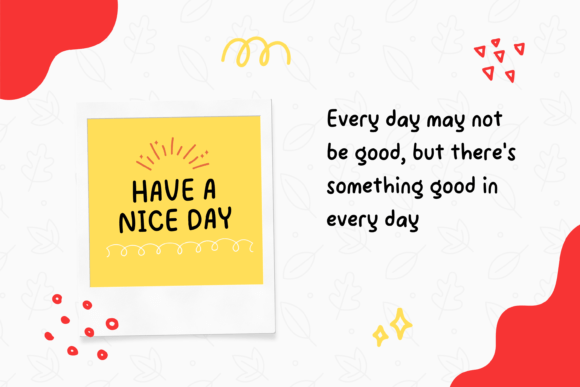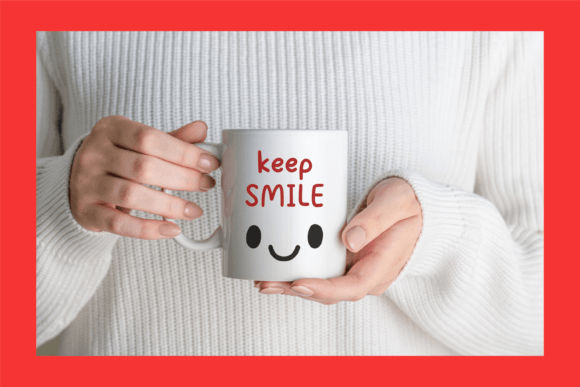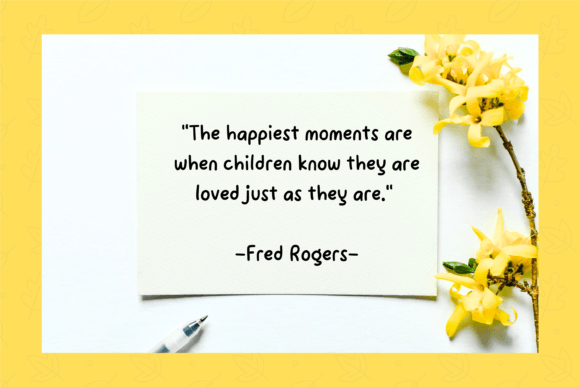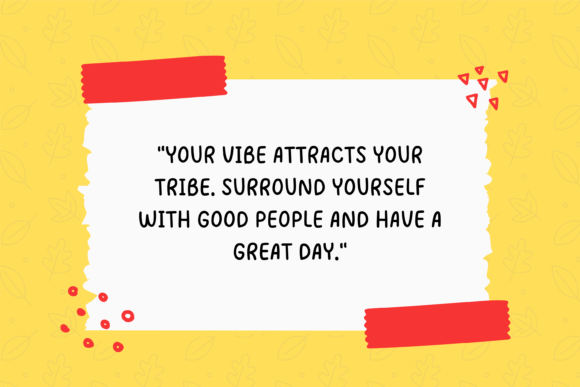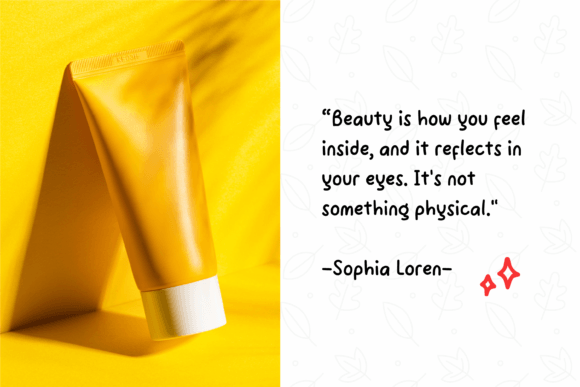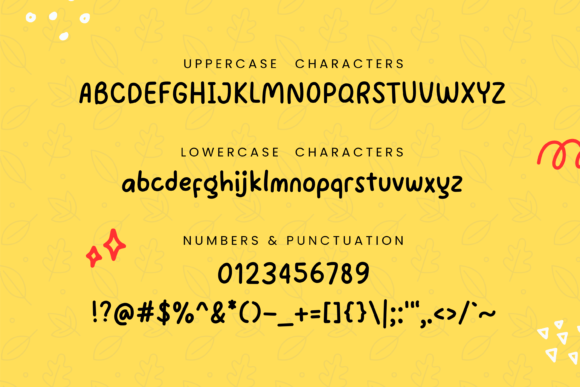
Cute Smile Font: A Delightful Addition to Your Design Projects
In the vast digital landscape, a smile can go a long way in making your content stand out. Introducing Cute Smile, a charming font designed to infuse your projects with a playful and cheerful vibe. With its endearing design, Cute Smile is like a breath of fresh air in a digital world, inviting users to engage with your content in a joyful and welcoming manner.
The Perfect Choice for Whimsical Designs
Whether you’re designing a children’s book, crafting invitations for a whimsical event, or adding a touch of cuteness to your branding, Cute Smile is the perfect choice. This delightful font is sure to capture the hearts of your audience, making your content more relatable and engaging. Its unique design makes it an excellent fit for projects that require a friendly and approachable tone.
Key Features of Cute Smile Font
- Unique Design: Cute Smile boasts a distinctive design that sets it apart from other fonts. Its endearing and playful style makes it perfect for projects that require a touch of whimsy.
- Highly Readable: Despite its playful design, Cute Smile is highly readable, making it suitable for body text and headings.
- Versatile: This font is versatile and can be used in a variety of design projects, from digital content to print materials.
Use Cases for Cute Smile Font
Cute Smile is a versatile font that can be used in a variety of design projects. Here are some use cases where Cute Smile shines:
- Children’s Books: Add a touch of whimsy to your children’s book with Cute Smile. Its playful design makes it perfect for storybooks, picture books, and early readers.
- Event Invitations: Create playful and engaging invitations for birthday parties, baby showers, and other celebrations with Cute Smile.
- Branding: Add a touch of cuteness to your branding with Cute Smile. Its friendly design makes it perfect for brands that want to appear approachable and welcoming.
- Digital Content: Use Cute Smile to add a playful touch to your blog posts, social media graphics, and other digital content.
Tips for Using Cute Smile Font
Here are some tips for using Cute Smile effectively in your design projects:
- Pair with Other Fonts: Pair Cute Smile with other fonts to create a unique and visually appealing design.
- Use for Headings: Use Cute Smile for headings and titles to add a touch of whimsy to your design.
- Experiment with Colors: Experiment with different colors to find the perfect combination that complements Cute Smile.
In conclusion, Cute Smile is a delightful font that can add a touch of whimsy to your design projects. Its unique design, high readability, and versatility make it perfect for a variety of projects, from children’s books to branding. With Cute Smile, you can create engaging and playful designs that capture the hearts of your audience. So why not give Cute Smile a try and see how it can elevate your designs?